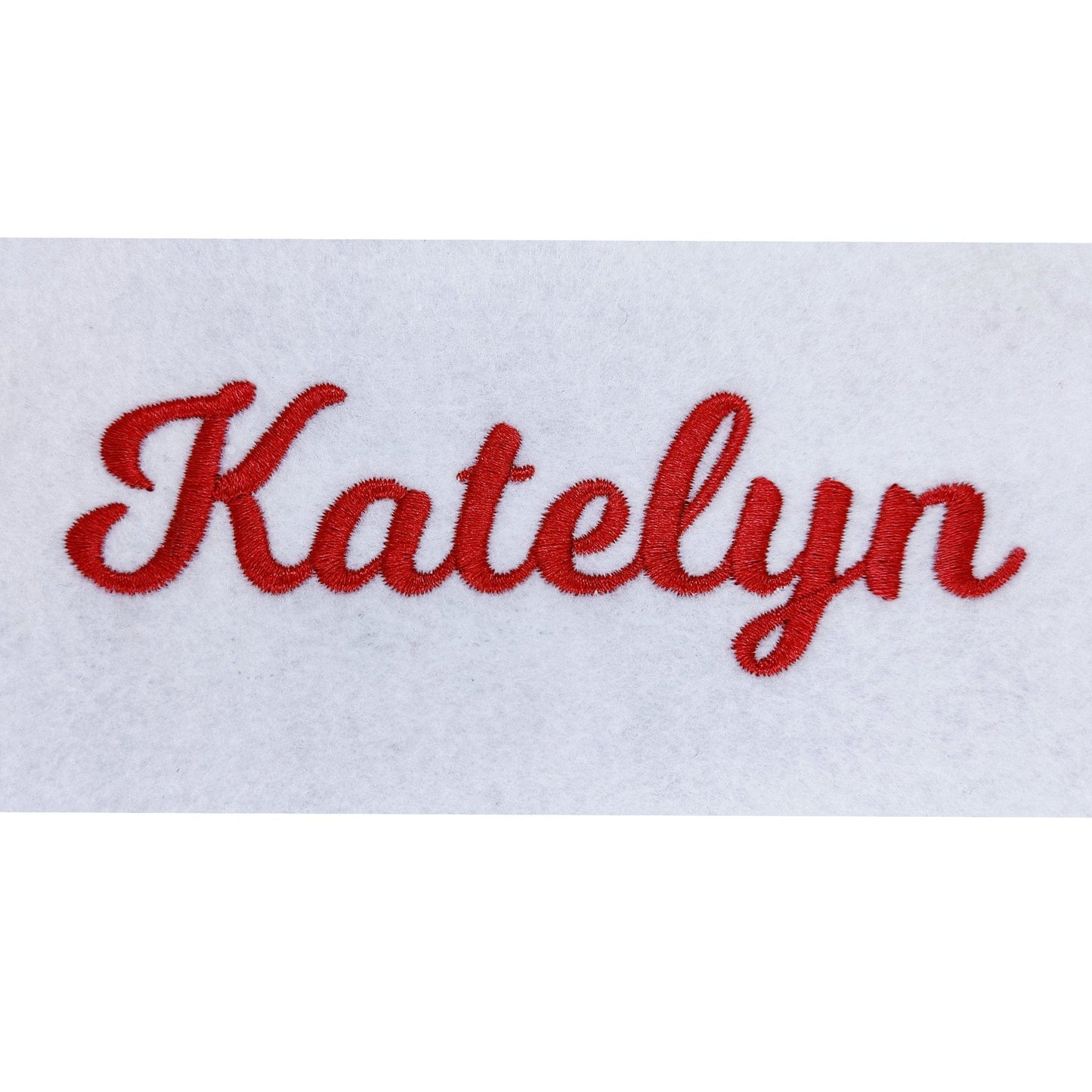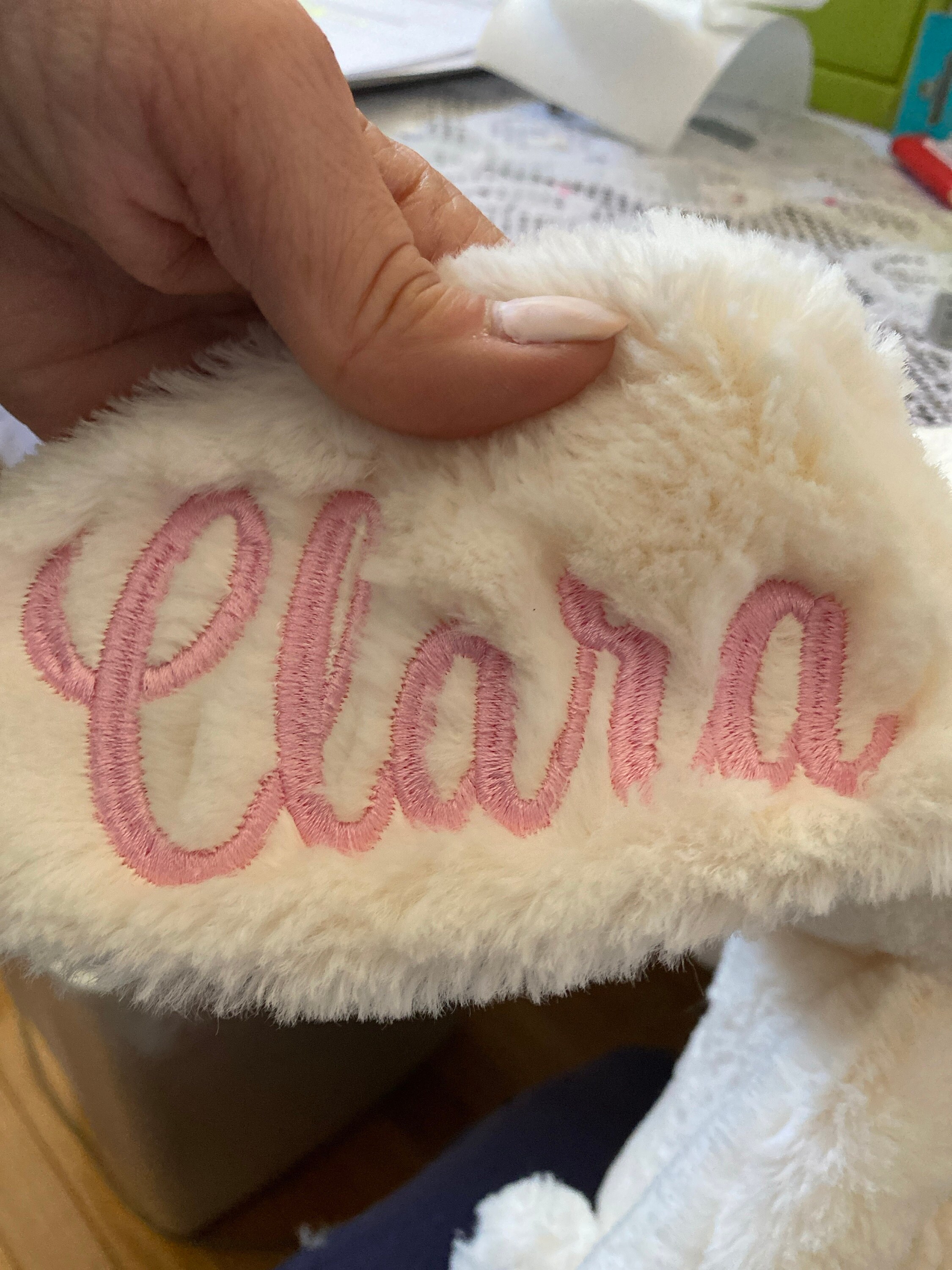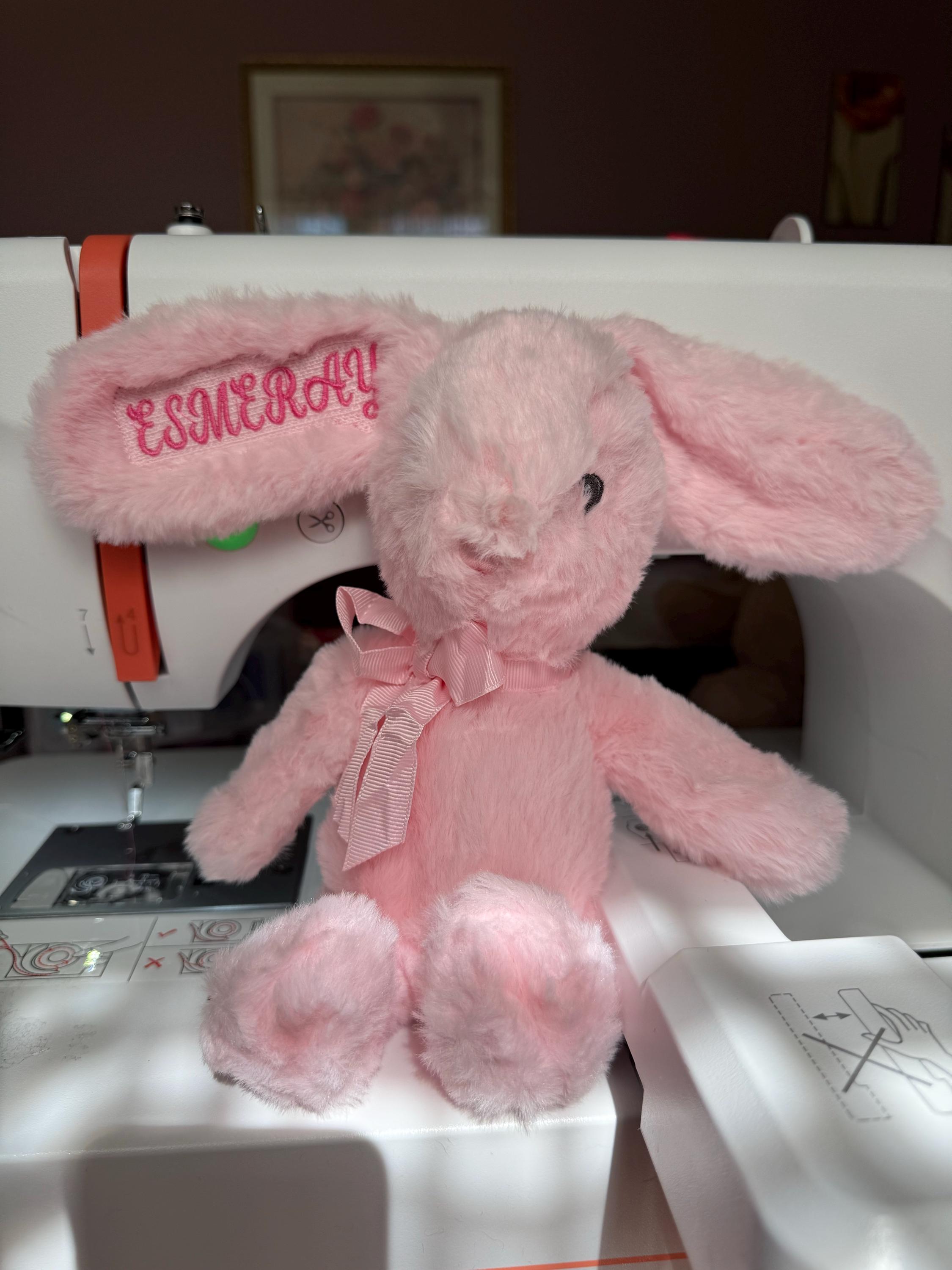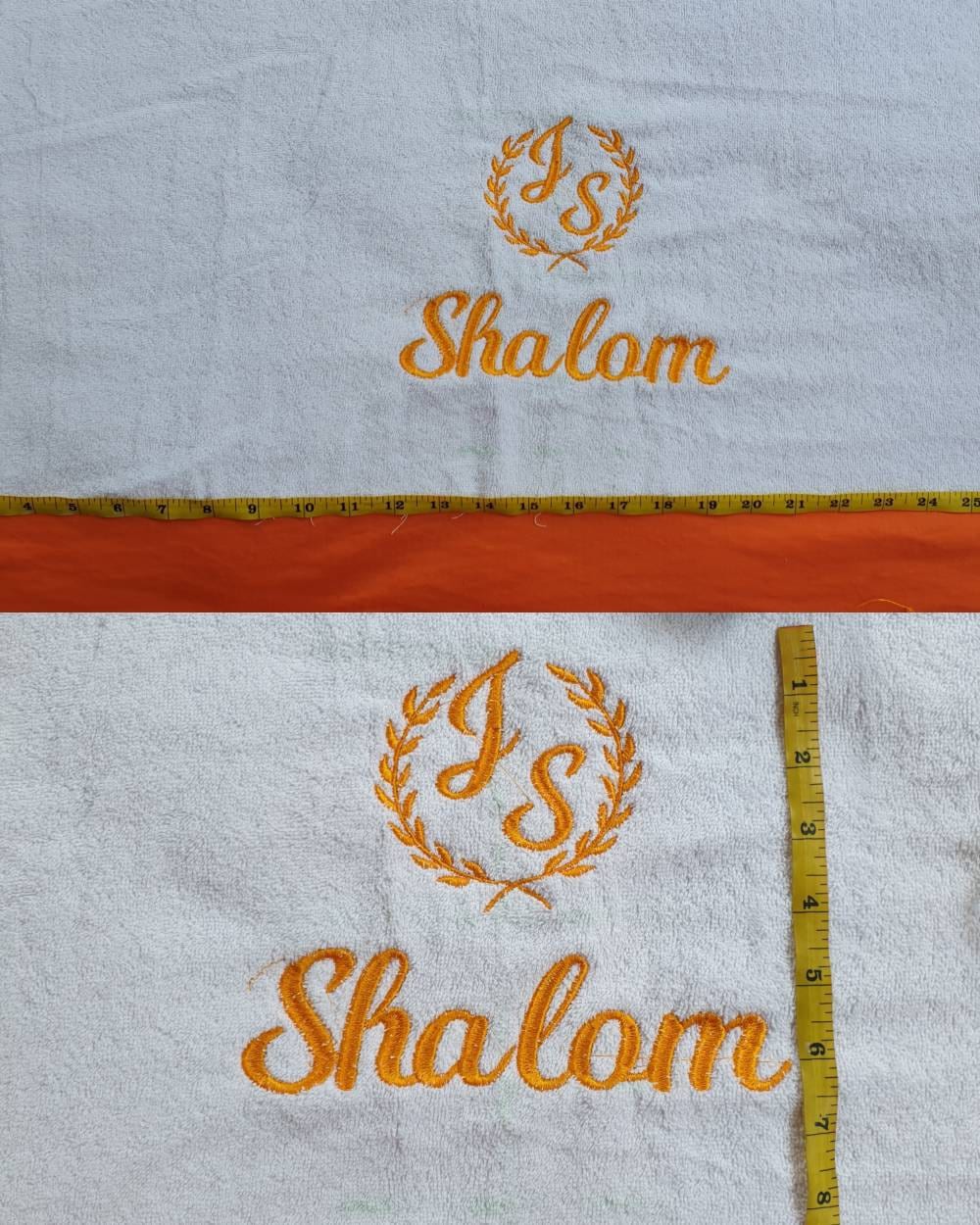
Katelyn - Mini embroidery font
Katelyn is a calligraphy machine embroidery font with a graceful cursive style and mini sizes starting at 0.5 inches. It suits home embroiderers making baby gifts, wedding keepsakes, and personalized celebration pieces, as well as small embroidery businesses creating custom names and monograms for towels, shirts, napkins, and keepsakes.